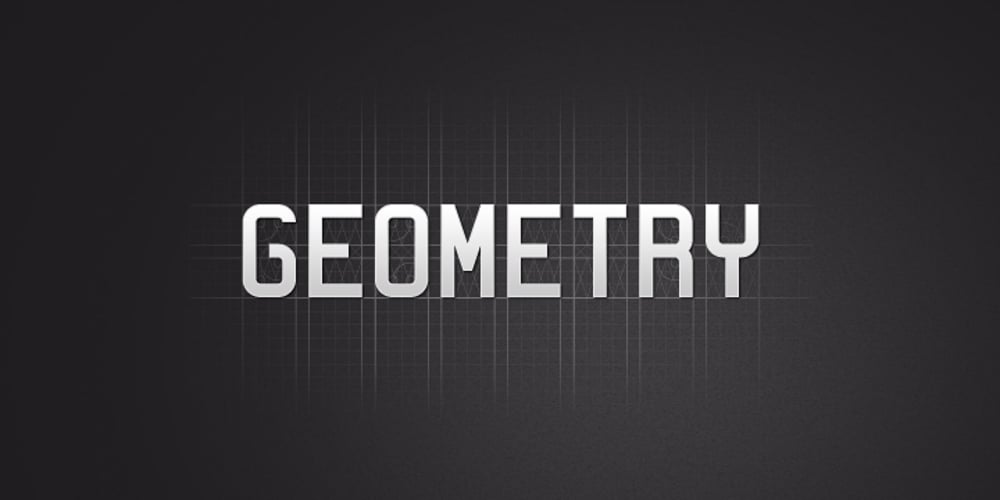
Geometry
Geometry font
Geometry Font Family was designed by Murid Rahhal and published by Sfaranda. Geometry contains 1 styles and family package options. The GEOMETRY Font is based on a specific grid. The grid is made of vertical, horizontal, diagonal lines and circles. Every single letter, number and symbol fits perfectly in the grid, no exception! The GEOMETRY Font includes uppercase, lowercase, numbers and punctuation symbols.